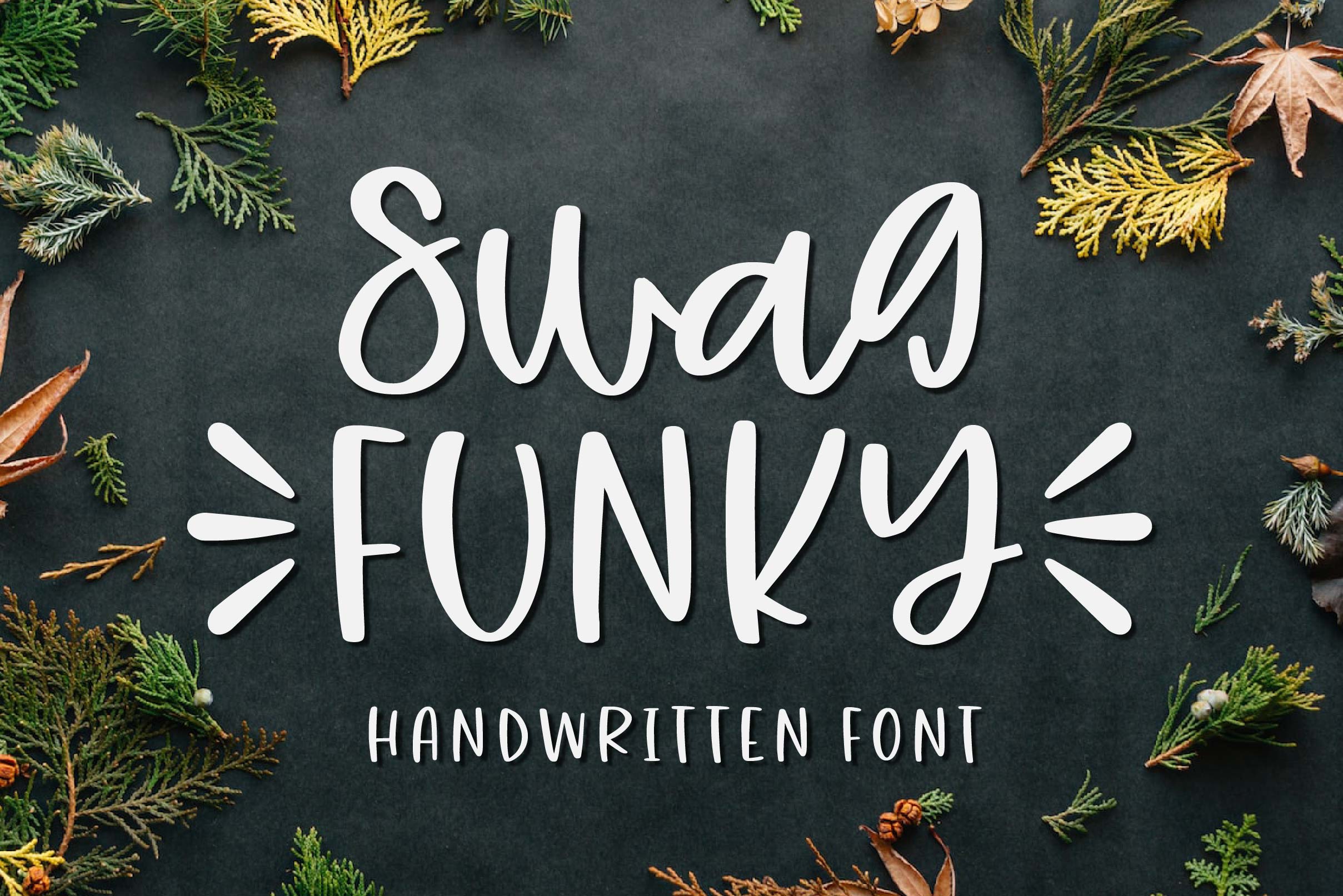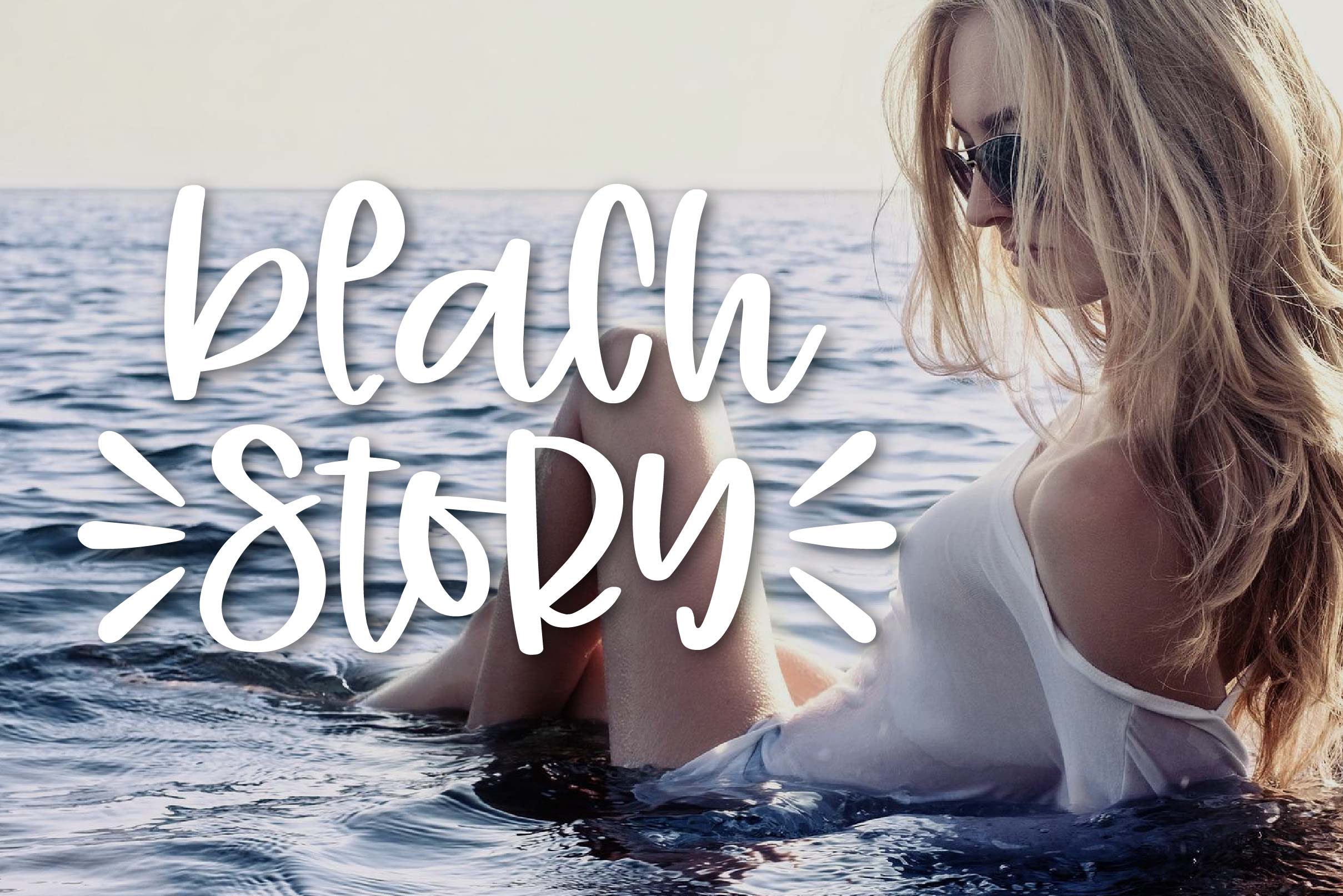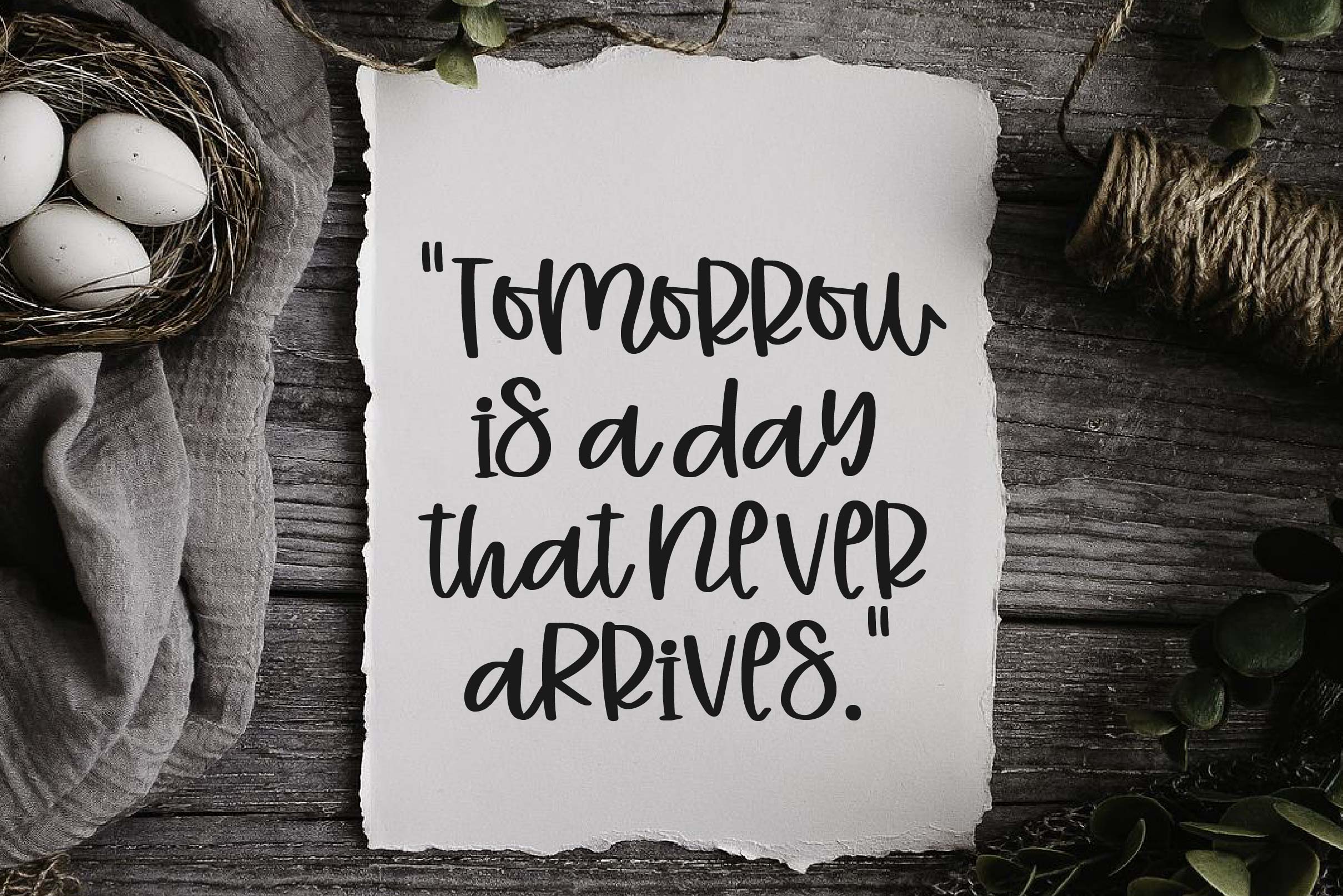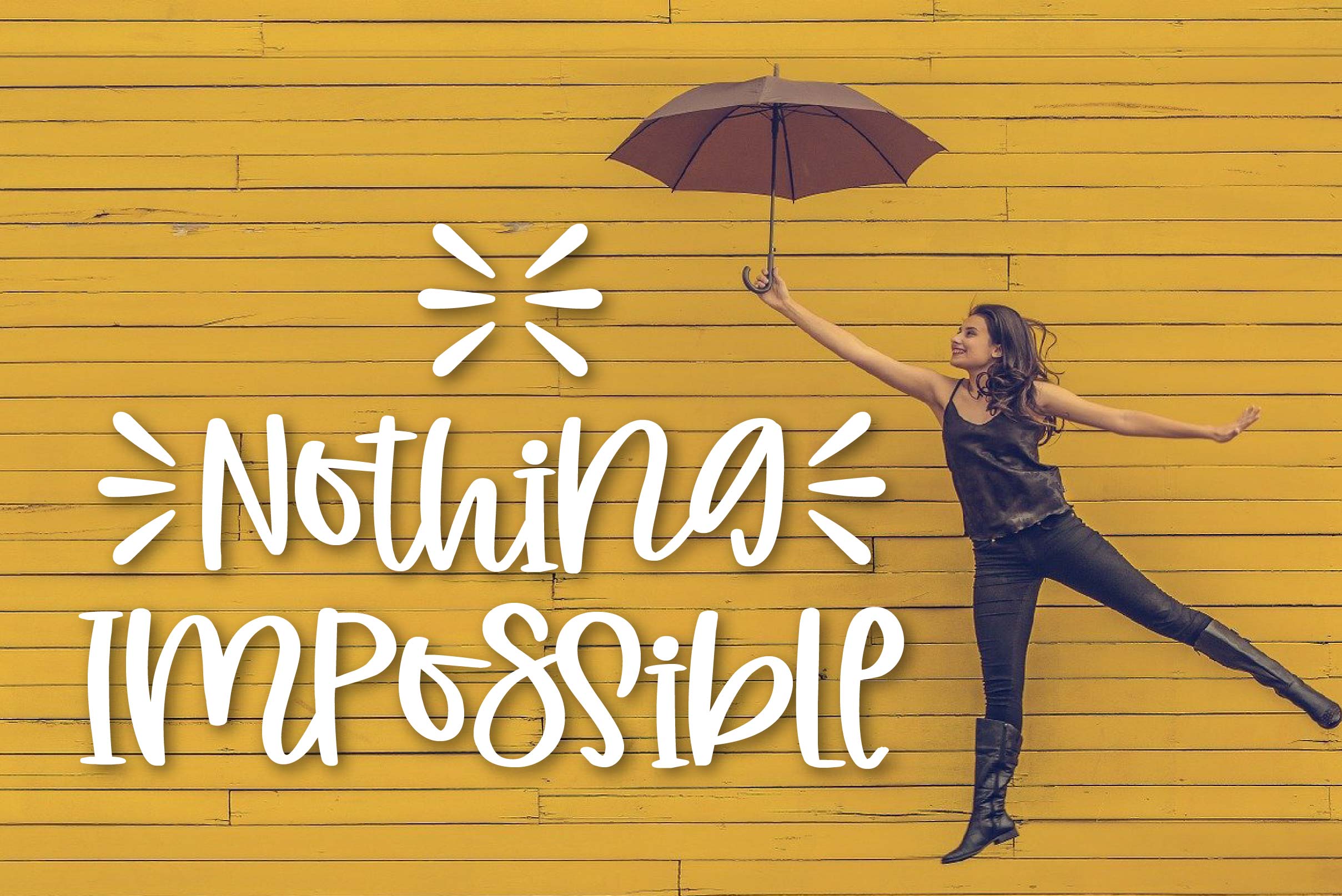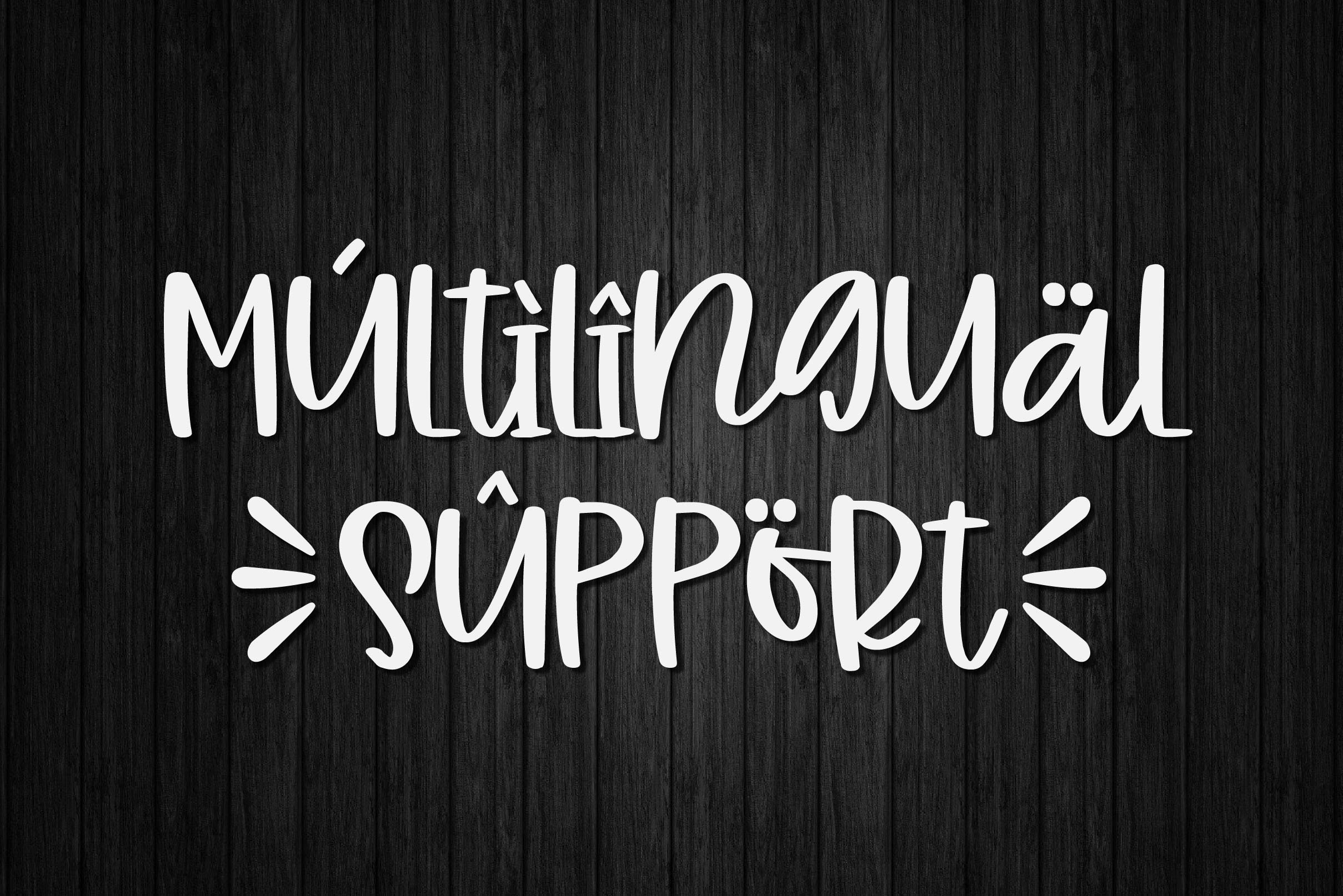
Swag Funky Font
Swag Funky Script Font is a chic and beautiful handwritten script font. It will add an authentic touch to any design idea. Add it to your most creative ideas and notice how it makes them come alive!
– Uppercase, Lowercase, Numeral & Punctuation
– Alternate Letters, Ligature & Swash/Tail
– Multilingual & PUA Encoded